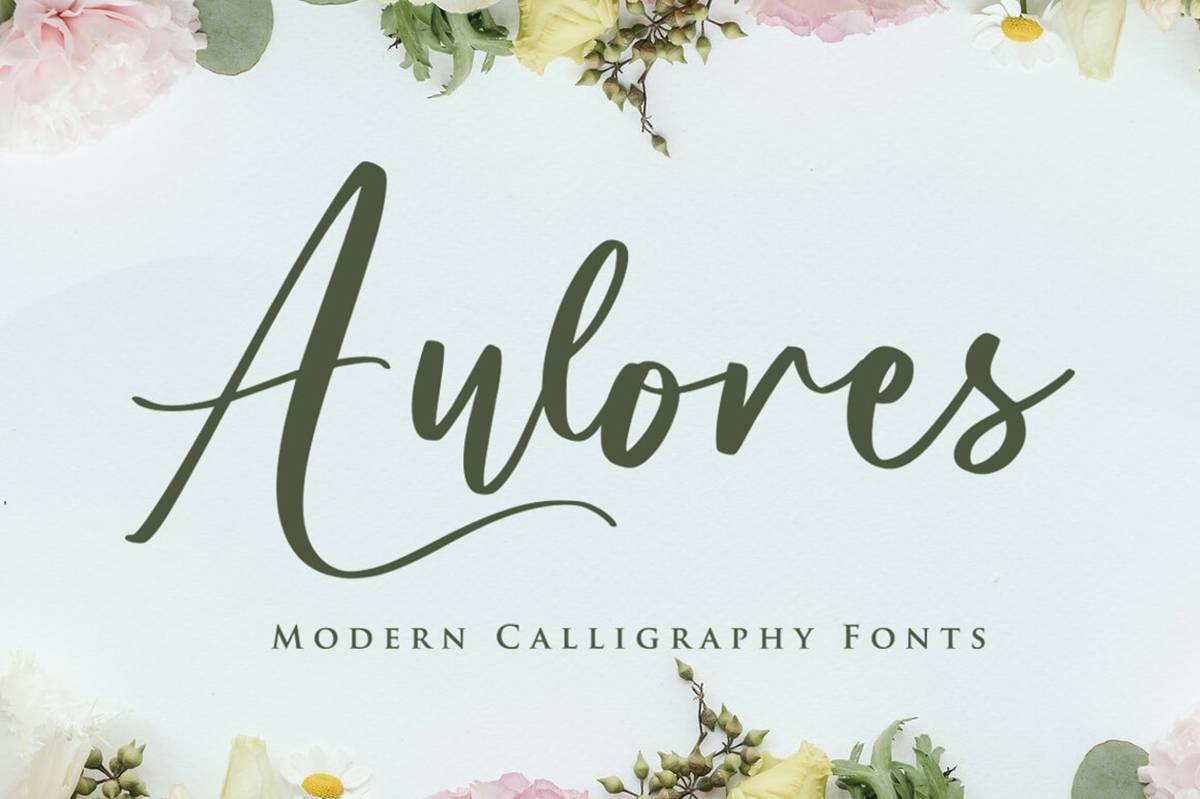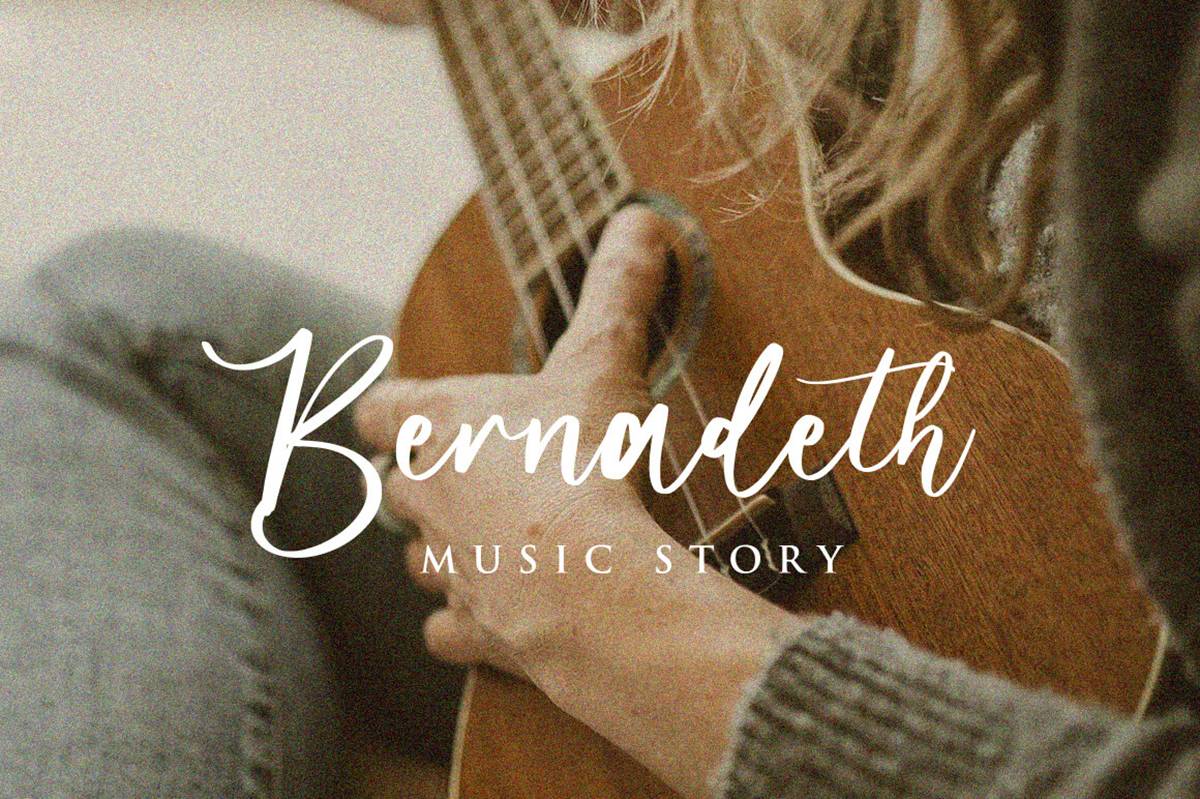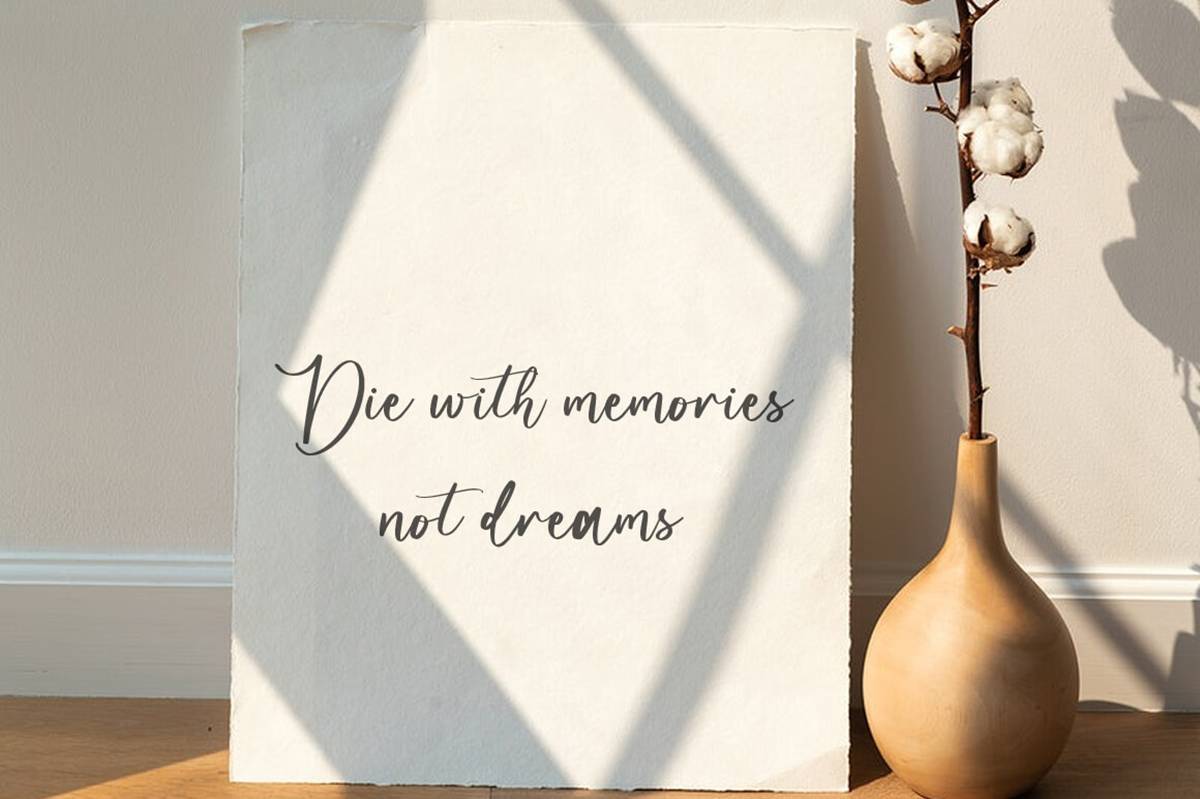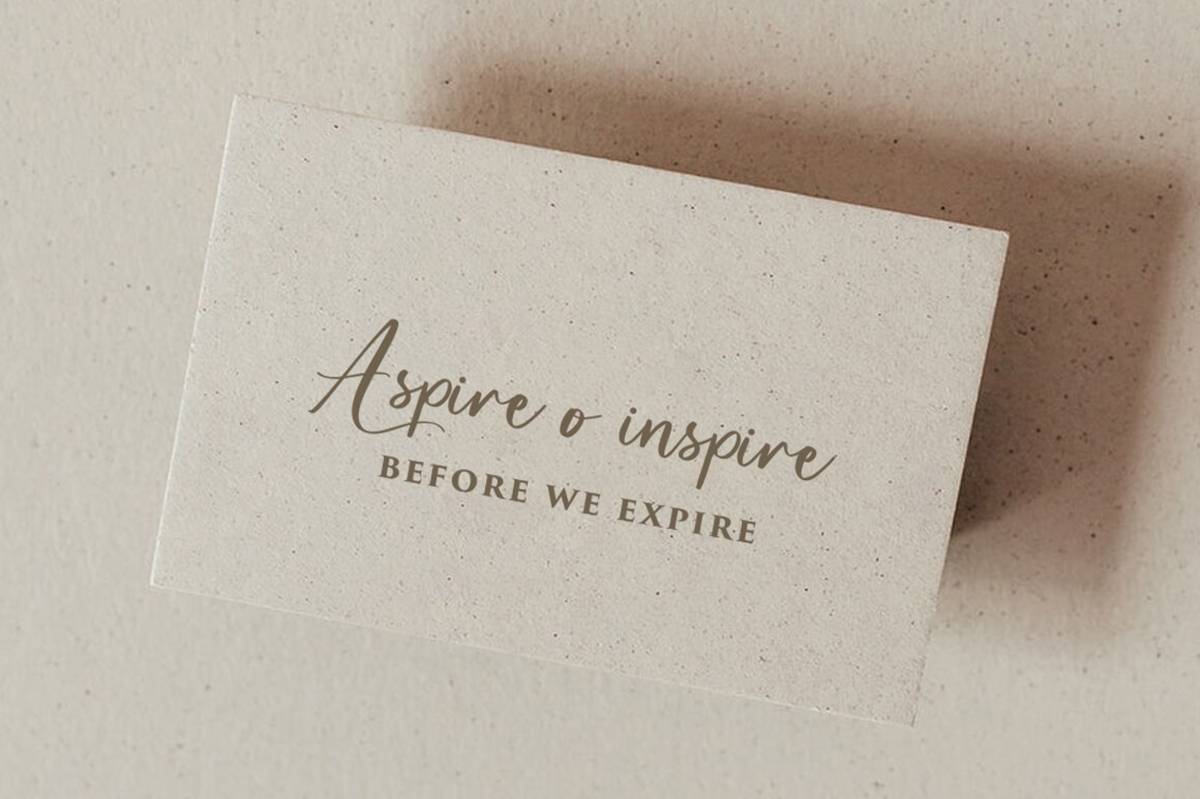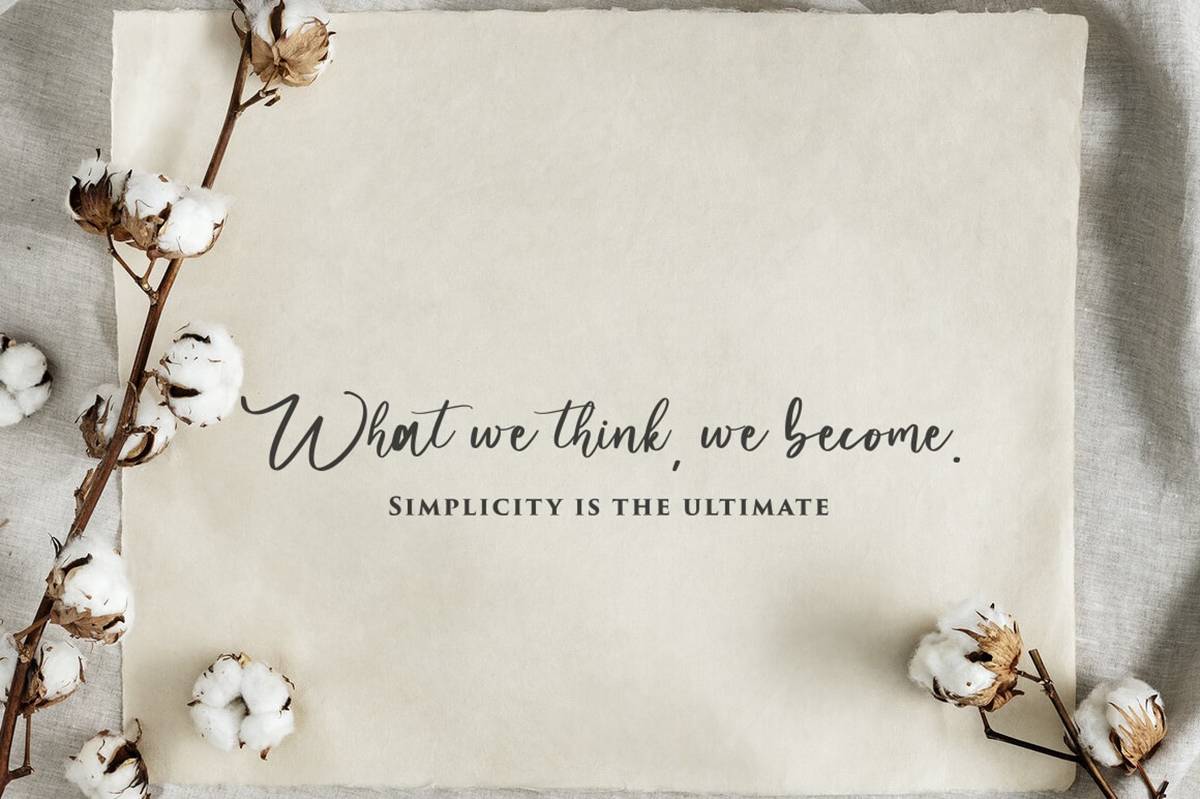
Aulores is a delicate, modern script font with a handwritten, elegant feel that balances smooth, flowing uppercase letters with a more compact and lively lowercase style. Its slender strokes and subtle flourishes create a refined, personal touch, making it perfect for wedding invitations, branding, and creative projects that want to convey warmth and sophistication. This font works beautifully in designs requiring a stylish yet approachable handwritten look.
Aulores Font
About Aulores Font
| Font family | Aulores Font |
| Designer | Hugefonts |